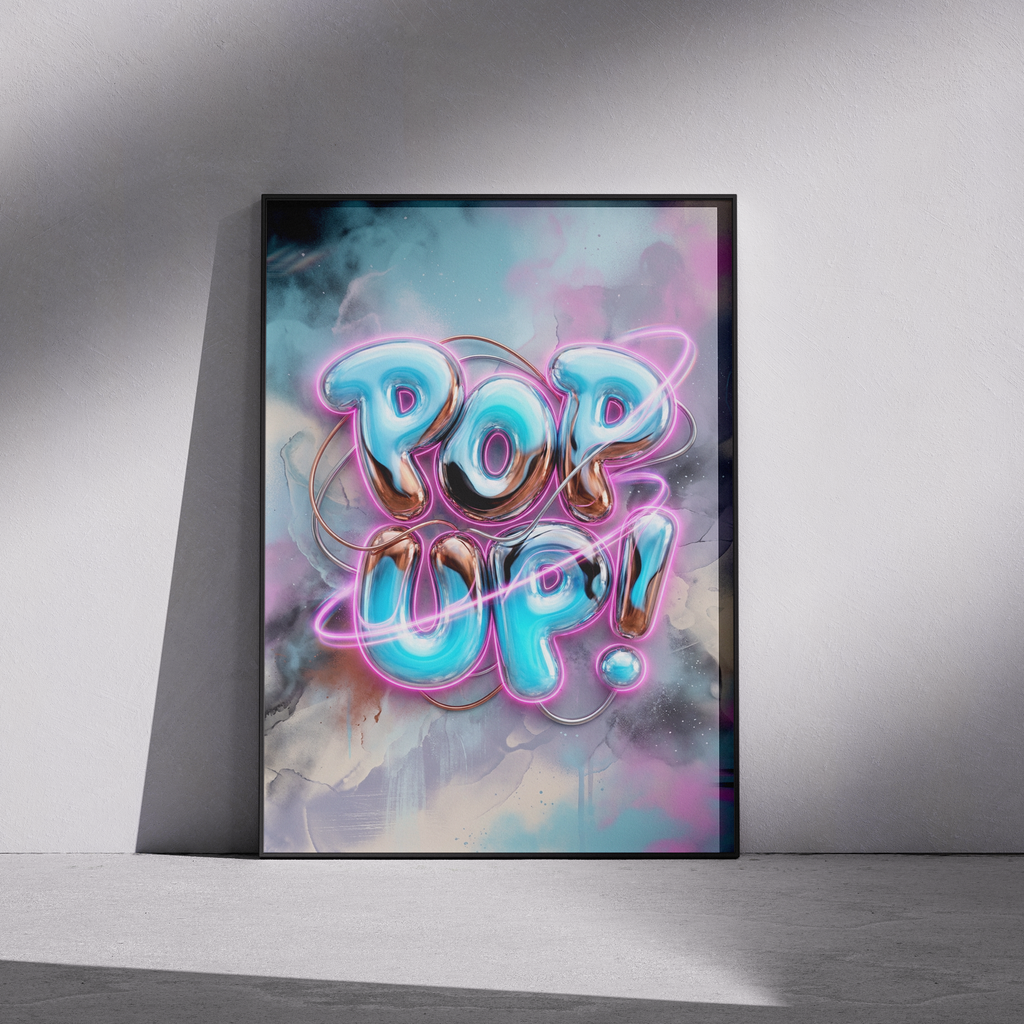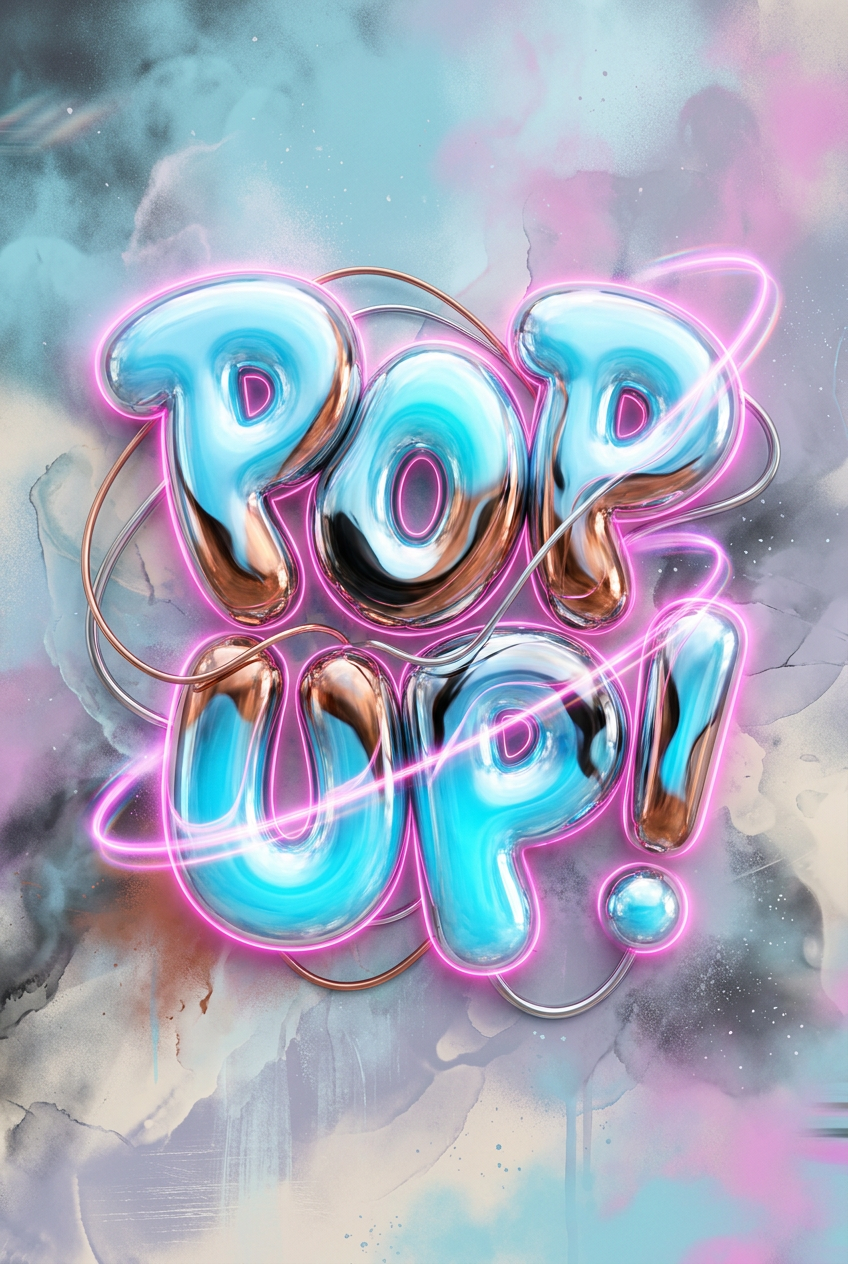
POP UP
61 x 91 cm poster "POP UP!" in bright turquoise and chrome tones, outlined with neon-pink light trails against a dreamy, pastel-cloud background. Energetic, playful, and modern—perfect for pop-culture spaces, event decor, or bold retail displays.